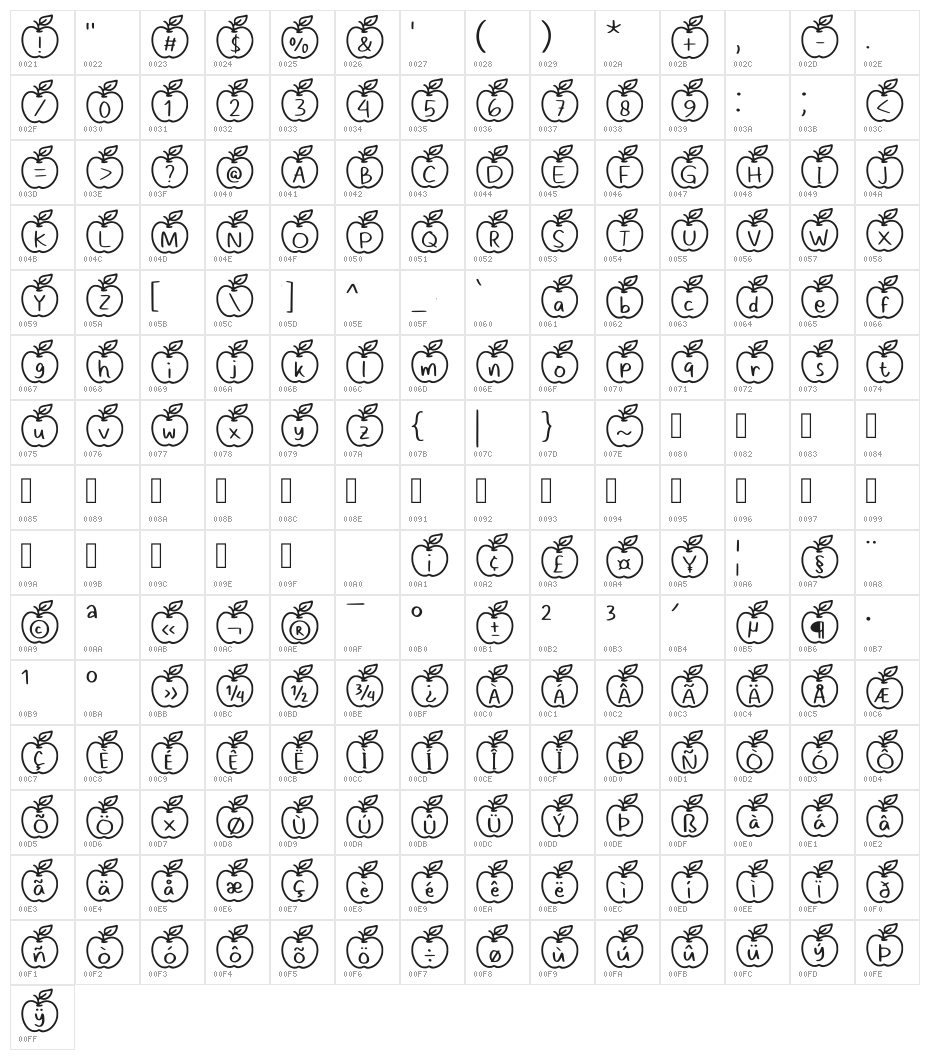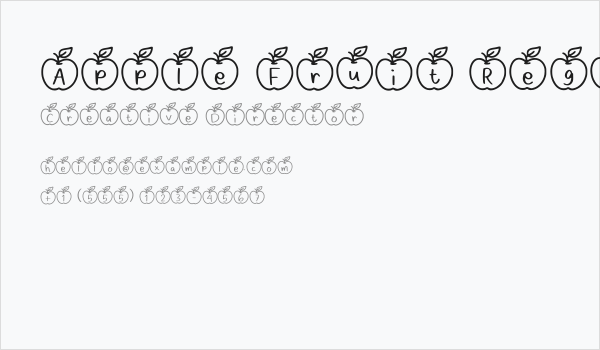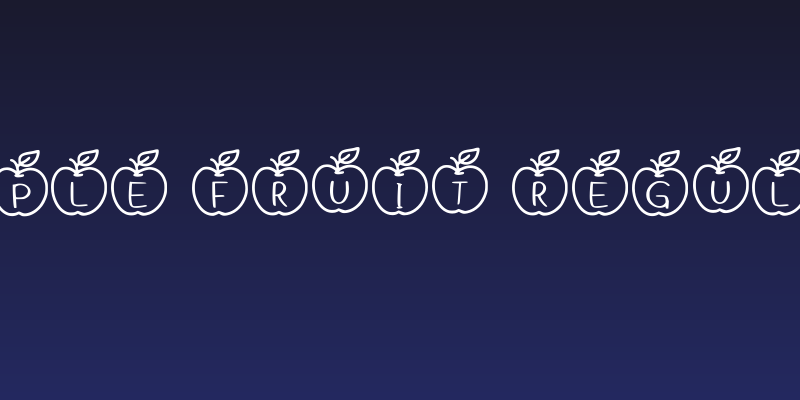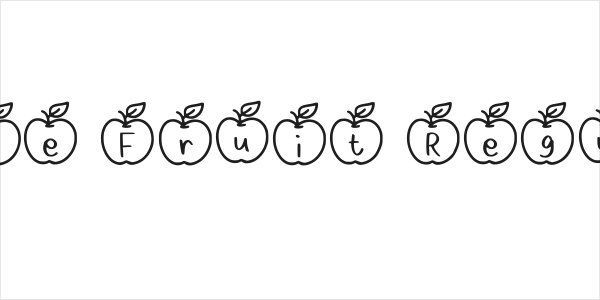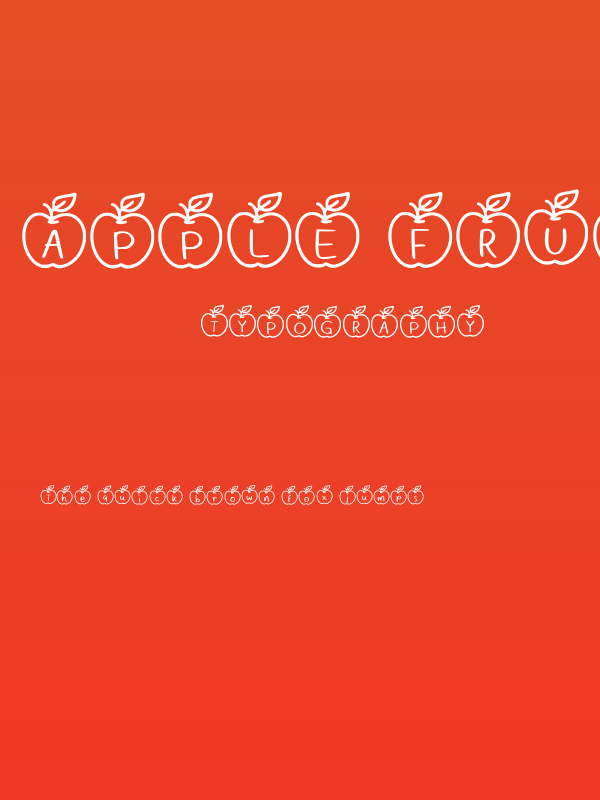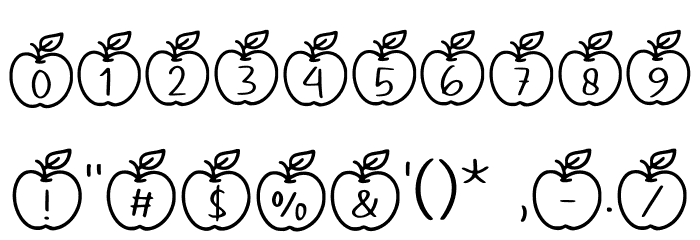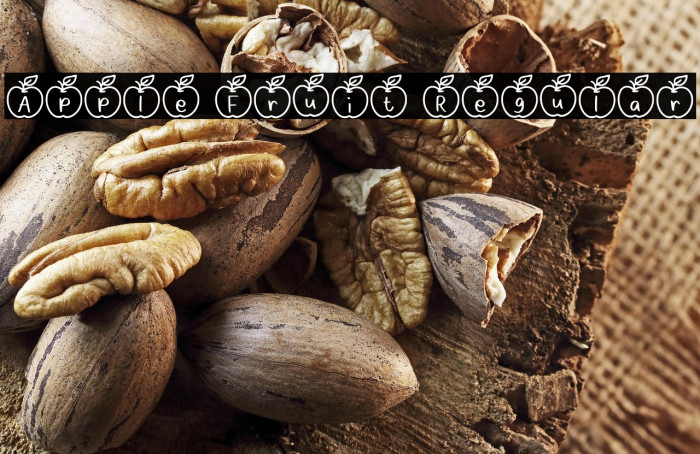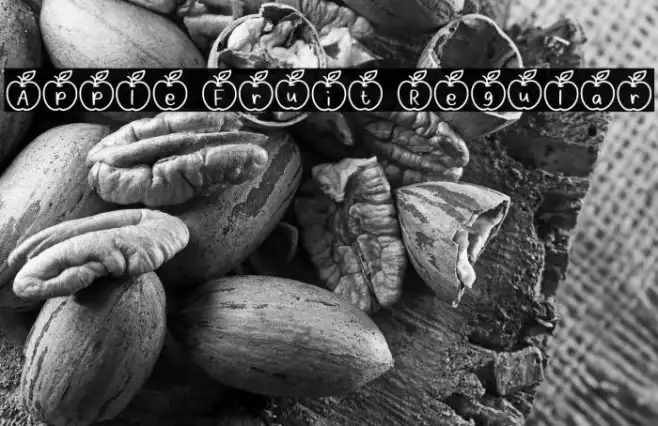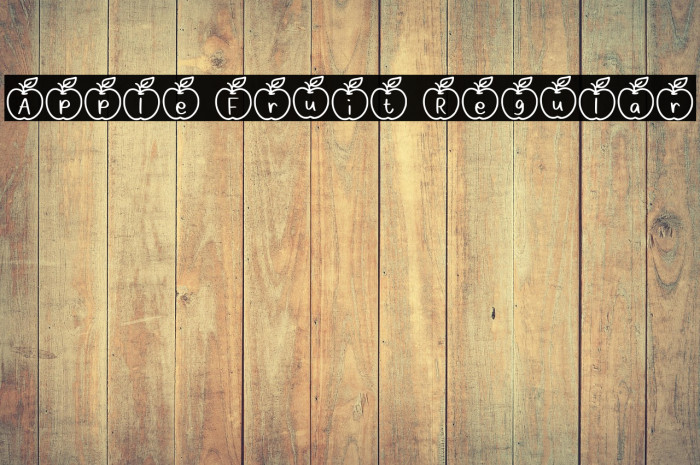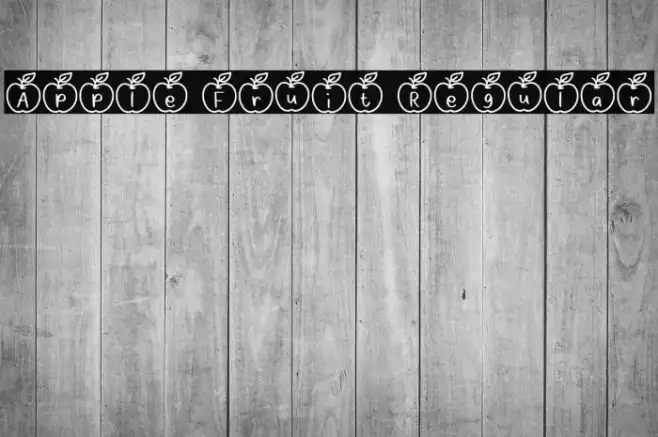
Apple Fruit Regular Font
Apple Fruit Regular Description
This playful and whimsical font features each character enclosed within a stylized apple shape, complete with a leaf on top. The letters are bold and rounded, providing a friendly and approachable feel. The design is consistent across uppercase, lowercase, numbers, and special characters, maintaining the apple motif throughout. This font is ideal for projects that require a fun and lighthearted touch, such as children's books, educational materials, or playful branding. The unique apple design adds a decorative element that makes it stand out, while the clear and legible characters ensure readability.
| Proposed Projects | Children's books, educational materials, playful branding, greeting cards, and themed party invitations. |